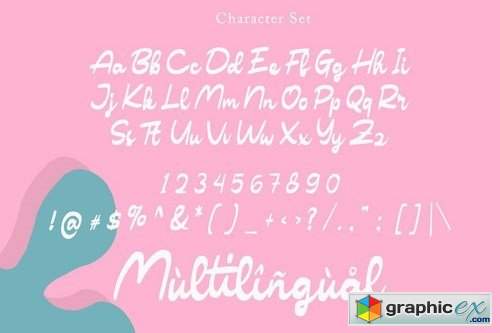
Retro Signature
Retro Signature, a classy, contemporary of script font, inspired by 1980’s and neon lights.
Retro Signature offers beautiful typographic harmony for a diversity of design projects, including logos & branding, social media posts, advertisements & product designs.